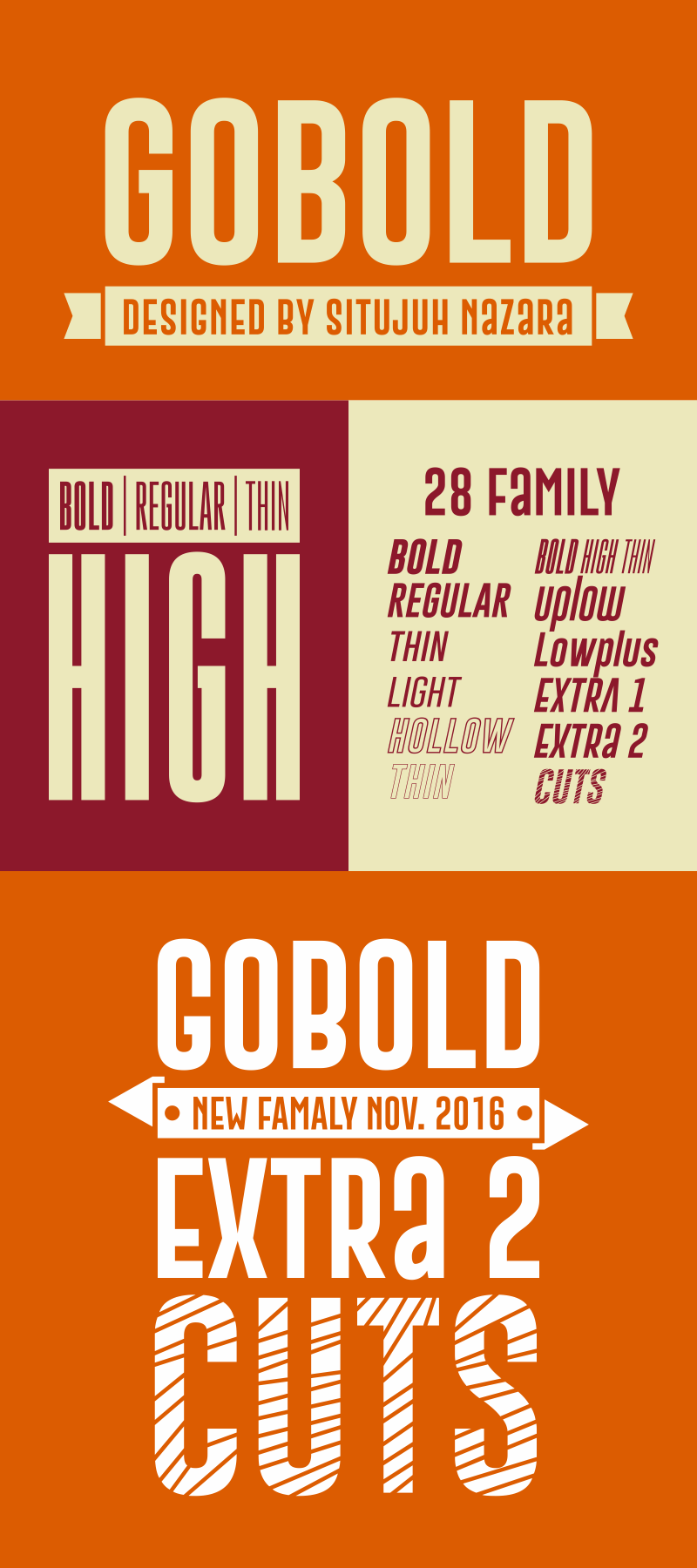
A stunning elegant Sans Serif font, GOBOLD Font Update 2, added 4 family [Extra2 Regular and Italic, CUTS Regular and Italic] and fixed some characters Personal use: FREE Commercial use: DONATE, mininal $10 USD via Situjuh's paypal account[c7nazara@gmail.com]. Use can also buy the commercial license on https://www.creativefabrica.com/designer/situjuh/ If you have any request or question, contact me via email [c7nazara@gmail.com] or leave a comment on my website http://c7n1.com |